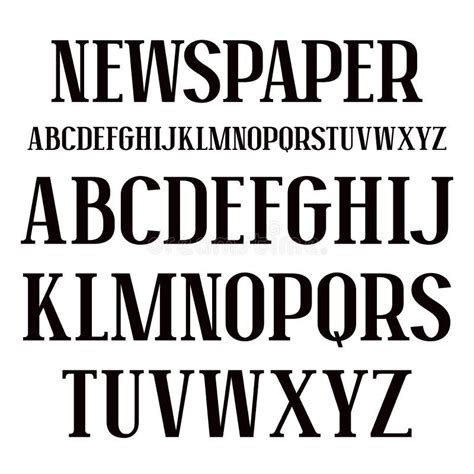
Create Eye-Catching Headlines: Your Guide To A Newspaper Headline Font Maker
Hey guys, let’s dive into the awesome world of newspaper headline font makers ! Ever wondered how those super-cool, attention-grabbing headlines in newspapers are created? Well, a newspaper headline font maker is your secret weapon. It’s a digital tool that lets you design and customize fonts specifically for headlines, making sure they pop and draw readers in. In this article, we’ll explore everything you need to know about these fantastic tools. We’ll cover what they are, why they’re essential, and how you can use them to create killer headlines that’ll make your content shine. Let’s get started and make your headlines the talk of the town!
What is a Newspaper Headline Font Maker?
So, what exactly is a newspaper headline font maker ? Simply put, it’s a software or online platform designed to help you create, edit, and customize fonts that are perfect for newspaper headlines. These tools are tailored to meet the specific needs of headline design, focusing on readability, visual impact, and stylistic flair. Unlike general-purpose font editors, newspaper headline font makers often offer features that are especially useful for designing attention-grabbing titles. Imagine having the power to craft headlines that not only convey information but also captivate your audience instantly. That’s the power of these tools, guys. They help you achieve that perfect balance between style and substance.
These font makers typically allow you to:
• Customize Font Styles: Modify existing fonts or create entirely new ones, adjusting things like the weight, size, and spacing to suit your needs.
• Experiment with Typography: Explore various font families and styles to find the perfect match for your newspaper’s branding and the tone of your articles.
• Ensure Readability: Optimize fonts for easy reading, making sure your headlines are clear and understandable at a glance. After all, the best headline is useless if no one can read it.
• Export and Use: Easily export your custom fonts for use in your newspaper layouts, ensuring consistency across all your headlines.
Basically, a newspaper headline font maker gives you the creative freedom to design headlines that stand out and pull readers in. Whether you’re a seasoned designer or a newbie, these tools offer a user-friendly way to make your headlines shine.
Why Use a Newspaper Headline Font Maker?
Alright, let’s talk about why you should totally use a newspaper headline font maker . The truth is, headlines are the first thing people see. They are your chance to make a strong impression and draw readers into your content. Using the right font can make all the difference between a click and a scroll-by. A well-crafted headline, with a font that’s both appealing and readable, can seriously boost your engagement. A professional font maker gives you the tools you need to nail that perfect first impression.
Here’s why using a newspaper headline font maker is a game-changer:
• Enhanced Readability: The primary goal of a headline is to convey information quickly and effectively. A font maker allows you to choose and customize fonts that are easy to read, even from a distance or on a cluttered page. This is super important because if your headline isn’t easily readable, people will just skip over it.
• Increased Visual Appeal: Eye-catching headlines attract attention. These tools help you create headlines that are visually interesting and make your newspaper more attractive. Think about it: a well-designed headline is like a magnet, drawing readers in with its style and flair.
• Branding and Consistency: A custom font helps reinforce your brand identity. Using a unique font across all your headlines creates a consistent look and feel, making your newspaper instantly recognizable. It’s like having a signature style that readers will come to associate with your publication.
• Professionalism: Using custom fonts demonstrates professionalism and attention to detail. It shows that you care about the presentation of your content, which can enhance your credibility and reputation.
So, whether you’re aiming to improve readability, create a stronger brand, or just make your headlines more visually appealing, a newspaper headline font maker is a must-have tool. It gives you the power to transform ordinary headlines into captivating works of art that grab readers’ attention and keep them coming back for more.
Features to Look for in a Newspaper Headline Font Maker
Okay, so you’re ready to get started. But before you jump in, what should you look for in a newspaper headline font maker ? Not all tools are created equal, so it’s important to pick one that meets your specific needs. Here’s a rundown of essential features to consider:
• Font Customization Options: The ability to tweak and modify fonts is super important. Look for a tool that lets you adjust the weight, size, spacing, and other design elements. You should be able to create headlines that are unique to your brand and match the style of your newspaper. It’s all about tailoring the fonts to your exact specifications.
• Font Family Variety: Having a wide selection of font families is essential. You want to be able to choose from different styles like sans-serif, serif, and display fonts. This gives you the flexibility to find the perfect font for every headline, from serious news stories to lighthearted features. Variety is the spice of life, right?
• Readability Features: Readability is key, guys. Make sure the font maker offers features to ensure your headlines are easy to read. This might include options for kerning (the space between letters), leading (the space between lines), and contrast adjustments. You want your headlines to be crystal clear and easy on the eyes.
• User-Friendly Interface: Let’s face it, nobody wants to spend hours learning a complicated program. A user-friendly interface is crucial. Look for a tool that’s intuitive and easy to navigate, so you can focus on creating awesome headlines instead of wrestling with the software. Time is valuable, after all.
• Export Options: Make sure the font maker lets you export your custom fonts in formats compatible with your design software. This will help you integrate your fonts seamlessly into your newspaper layouts. Compatibility is key for a smooth workflow.
• Integration with Design Software: Ideally, the tool should integrate well with your existing design software, such as Adobe InDesign or similar programs. This allows you to easily import and use your custom fonts within your regular workflow. The easier it is to use, the better!
• Preview Functionality: A preview function is a must-have. You’ll want to see how your headlines will look in different sizes and layouts before finalizing them. This helps you catch any issues and make sure your headlines are visually perfect. Preview before you commit, always!
By keeping these features in mind, you can find a newspaper headline font maker that’s perfect for your needs, empowering you to create headlines that capture attention and drive engagement.
Top Newspaper Headline Font Makers
Alright, let’s talk about some of the best newspaper headline font makers out there. Choosing the right tool can make a huge difference in the quality of your headlines. Here are a few top picks, along with their key features, to get you started. Each of these tools brings something unique to the table, so you can pick the one that best matches your needs and style. Whether you’re looking for a simple, easy-to-use option or a more advanced suite of features, there’s a font maker out there for you.
FontForge
FontForge is a powerful, free, and open-source font editor. It’s an excellent choice if you’re looking for a comprehensive tool that gives you complete control over your font design. Its key features include:
• Complete Control: Offers extensive customization options for every aspect of your font.
• Open Source: Being open-source, it’s constantly updated and supported by a community of users.
• Cross-Platform: Works on Windows, macOS, and Linux, making it super versatile.
Glyphs
Glyphs is a professional font editor designed for macOS. It’s a favorite among many designers because it’s user-friendly and offers advanced features. Here’s what makes Glyphs stand out:
• User-Friendly: Designed with a clean and intuitive interface, making it easy to create and edit fonts.
• Advanced Features: Supports complex scripts and glyph variations.
• Great for Typography: Excellent for creating high-quality, professional fonts.
BirdFont
BirdFont is a free and open-source font editor that focuses on making font design accessible to everyone. Here’s why it’s a great choice:
• Beginner-Friendly: Simple and easy to use, perfect for beginners.
• Free: Completely free to use, making it accessible for all.
• Vector-Based: Supports vector graphics, allowing you to create high-quality fonts.
Online Font Generators
If you prefer a simpler, web-based approach, there are also numerous online font generators available. These tools are perfect for quick adjustments and basic headline creation:
• Easy to Use: Generally very user-friendly with intuitive interfaces.
• Quick Results: Great for fast headline mockups and edits.
• Limited Customization: May offer fewer advanced features than dedicated software.
By exploring these options, you can find the perfect newspaper headline font maker to bring your creative vision to life.
Tips for Creating Effective Newspaper Headlines
So, you’ve got your newspaper headline font maker all set up. Now, let’s talk about how to create headlines that really work. It’s not just about picking a cool font; it’s also about crafting the perfect words. Here are some key tips to make your headlines irresistible.
• Keep it Concise: Get straight to the point. Short, snappy headlines are more likely to grab attention. Trim the fat and focus on the most important information. The shorter, the better, usually.
• Use Strong Verbs: Verbs are the engine of your headline. Use powerful, active verbs to create impact and draw readers in. Avoid weak verbs like “is” or “was” whenever possible.
• Incorporate Keywords: Include relevant keywords to improve SEO and help readers quickly understand the topic. This also makes it easier for people to find your content through search engines.
• Ask a Question: Questions can pique curiosity and encourage readers to engage. Make sure the question is relevant and intriguing. Who doesn’t love a good question?
• Use Numbers: Numbers tend to stand out. Lists and numbered headlines can be very effective at capturing attention. “5 Tips for…” or “Top 10…” are classic examples.
• Create Intrigue: Use mystery and suspense to entice readers to learn more. Tease the story and create a sense of curiosity. A little mystery goes a long way!
• Focus on the Benefit: Tell readers what they’ll gain from reading the article. Highlight the value and benefits of your content. What’s in it for them?
• Test Your Headlines: Try out different headlines to see which ones perform best. Use A/B testing to compare different versions and optimize your approach.
By combining a great font with well-crafted words, you can create headlines that not only look fantastic but also drive engagement and keep readers coming back for more. These tips, along with your trusty newspaper headline font maker , will help you create headlines that shine.
Conclusion: Making Headlines That Matter
Alright, guys, you’ve now got the lowdown on newspaper headline font makers and how to use them effectively. From understanding what these tools are to finding the right features and creating compelling headlines, we’ve covered a lot of ground. Remember, a great headline is the gateway to your content. It’s what grabs readers’ attention and makes them want to learn more. By using a newspaper headline font maker and following the tips we’ve discussed, you can create headlines that are visually appealing, easy to read, and most importantly, effective. So go ahead, experiment with different fonts, try out new headline formulas, and see what works best for you. Happy designing, and keep those headlines bold and beautiful!